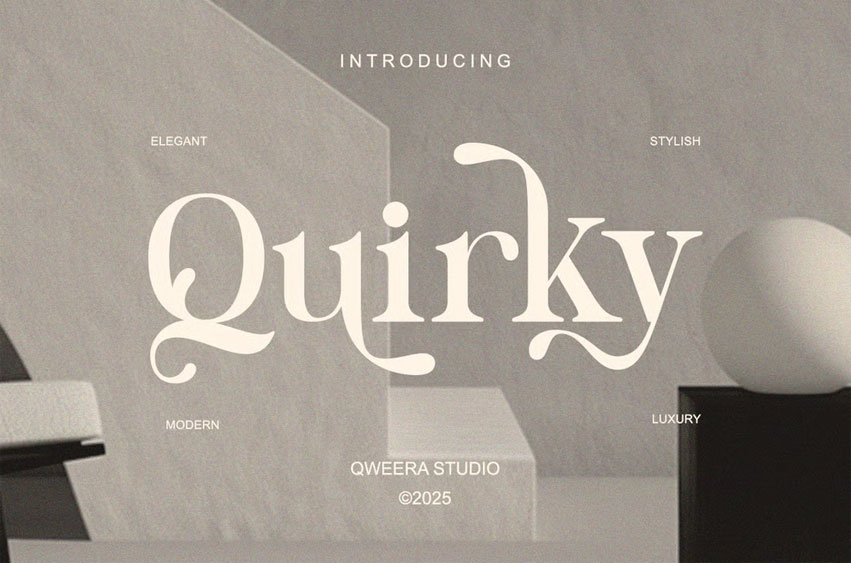
Quirky Font
Quirky Font is a modern, elegant serif font with a stylishly eccentric edge. It blends luxurious contrast with artistic curves, creating a balance between sophistication and creativity. Perfect for branding, packaging, editorial layouts, and fashion projects, Quirky embodies the new era of high-end minimal elegance.
Each curve is carefully designed to make your brand stand out with confident modern aesthetics.
• Regular & Italic
• Uppercase & Lowercase Letters
• Alternates & Ligatures
Perfect For: Luxury branding, editorial design, logo creation, and high-end packaging.